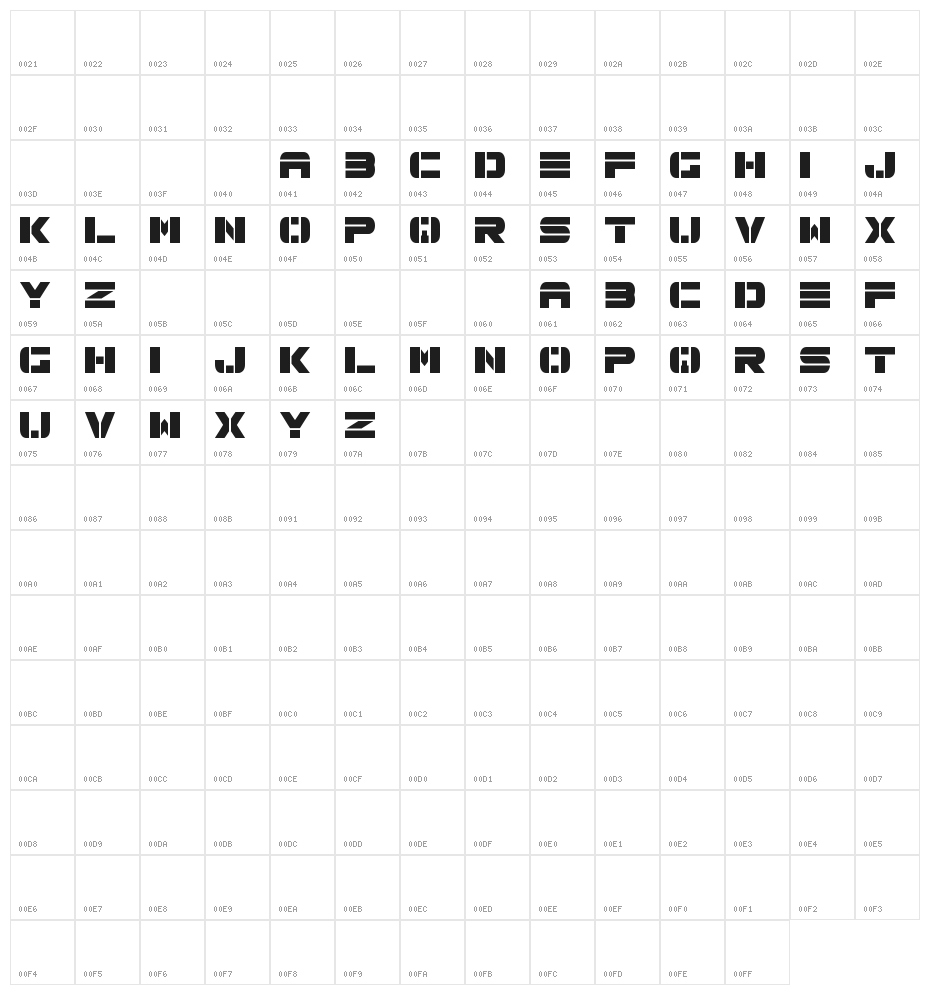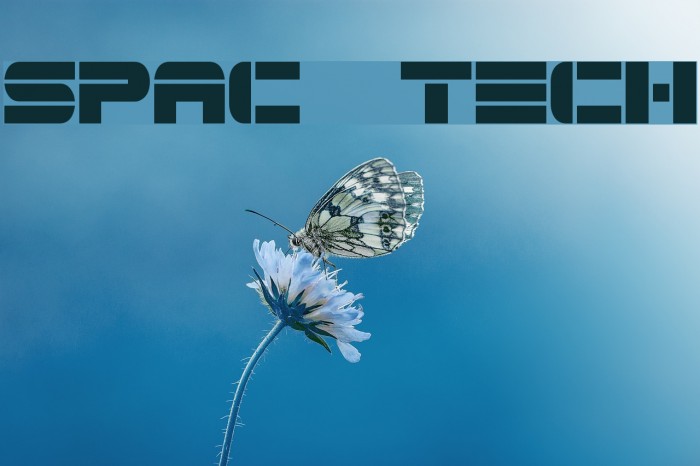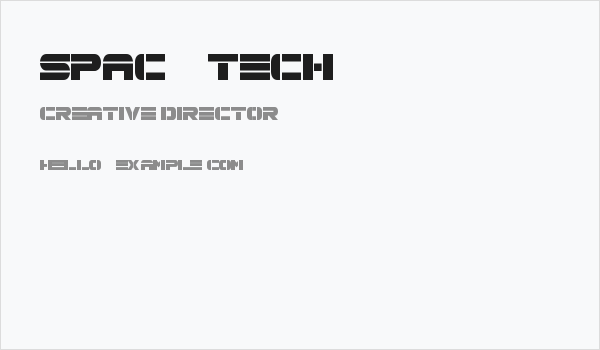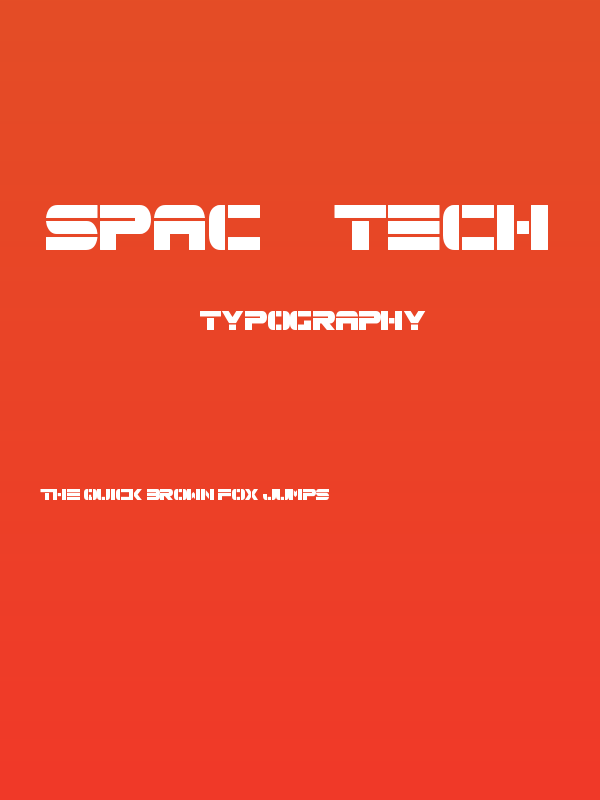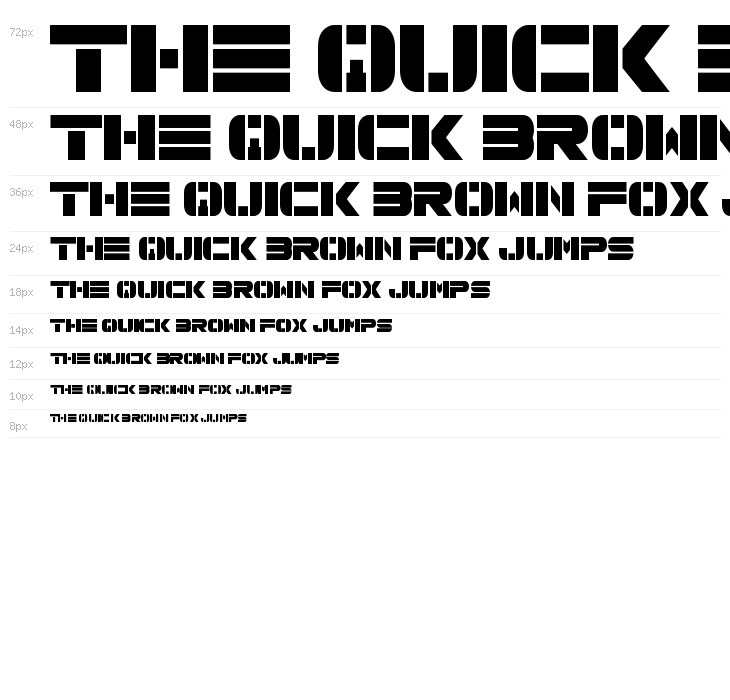
Spac3 tech Font
Spac3 tech Description
This font features a futuristic and bold design, characterized by its geometric shapes and solid, block-like appearance. The letters are constructed with a series of horizontal and vertical lines, creating a sense of movement and modernity. The font's style is reminiscent of digital or technological themes, making it suitable for projects that require a contemporary and cutting-edge look. The uppercase letters are particularly striking, with their strong presence and unique form. The overall design is consistent and cohesive, offering a visually appealing and dynamic typeface.
| Proposed Projects | Ideal for technology branding, sci-fi posters, video game titles, and modern digital interfaces. |